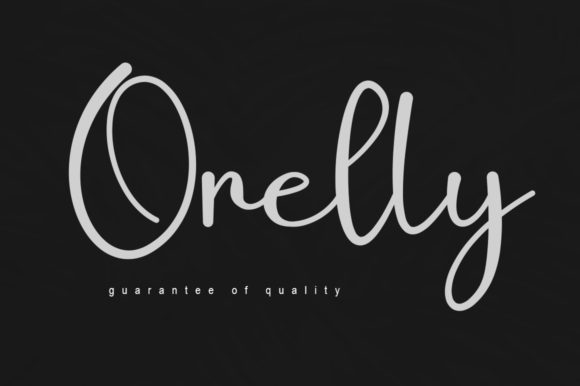
Behold, the captivating allure of Orelly Font, a celestial blend of romance and modernity, gracefully crafted with a touch of poetic charm. Its characters, like whispers of the wind, dance across your digital canvas, creating an aura of authenticity and elegance.
Immerse yourself in the world of Orelly, where your creative visions take flight. Its enchanting curves and harmonious lines bestow a sense of refinement upon every project you embark upon, whether it be a heartfelt letter, an artistic design, or a captivating social media post.
With Orelly as your chosen font, your words transforms into works of art, each letter a brushstroke in a symphony of creativity. Its elegantly flowing design lends a touch of delicacy to your designs, like a handwritten note penned with love.
Unlock the gateway to boundless creativity with Orelly. Its versatility knows no bounds, allowing you to weave your magic in a myriad of projects. From logos that exude sophistication to wedding invitations that whisper romance, Orelly elevates your designs to new heights.
Elevate your designs to the realm of sophistication and charm with Orelly Font. Its poetic essence adds depth and character to your projects, captivating your audience with its graceful presence. Experience the magic of Orelly today and embark on a journey of creative brilliance.